Collection of Dirty, Rough, and Grunge Fonts for Bold Designs
Fonts are one of the most powerful tools in graphic and web design, and choosing the right style can dramatically enhance your creative projects. Our Collection of Dirty, Rough, and Grunge Fonts for Bold Designs offers a handpicked selection of edgy, distressed, and unconventional typefaces that will help your designs stand out with personality and attitude.
Why Dirty and Grunge Fonts Are Essential
Dirty, rough, and grunge fonts are ideal for designers looking to create bold, edgy, and unconventional typography. These fonts are perfect for:
Posters and flyers with an urban or rebellious vibe
Album covers and music branding
Streetwear and apparel graphics
Websites and social media projects seeking a raw, authentic look
Logo designs that need attitude and originality
By incorporating rough and grunge typefaces, you can add texture, depth, and character to your text. Unlike clean or minimalist fonts, grunge fonts communicate emotion, style, and a sense of handcrafted authenticity.
Features of This Font Collection
This curated collection of dirty, rough, and grunge fonts includes typefaces that are:
Versatile for print and digital projects
High-quality and professionally crafted
Easy to customize in size, color, and effects
Free and premium options included for designers
You can combine these fonts with bold color schemes, textured backgrounds, and distressed effects to create truly unique and memorable designs. Whether you are designing flyers, posters, logos, packaging, or web graphics, these fonts will help your text stand out.
Elevate Your Bold Designs Today
Explore the Collection of Dirty, Rough, and Grunge Fonts to give your projects a raw, stylish, and artistic edge. 💡 Pro Tip: Pair these fonts with grunge textures, distressed overlays, and contrasting colors to maximize impact.
1. Skyfall font
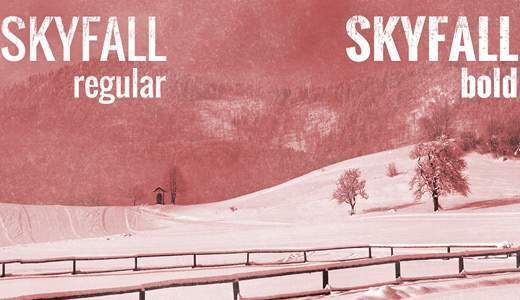
2. Scorched Earth font
3. SkyFall Done font
4. Old Press font
5. Top Secret font
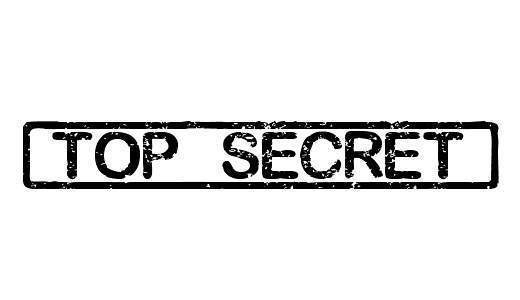
6. CF The Lost Battalion font
7. FarCry font
8. Tiza font
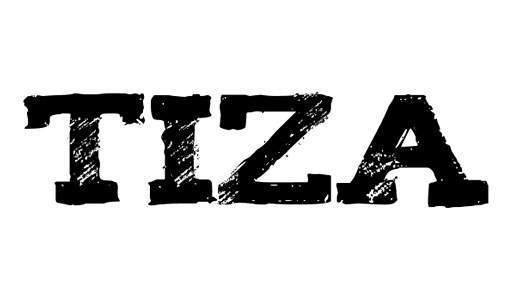
9. Subway Novella font
10. A Love of Thunder font
11. All Ages font
12. You Are Loved font
13. California font
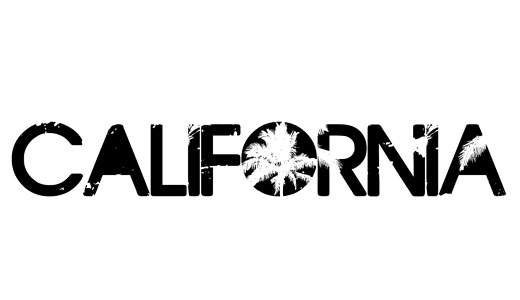
14. Revolution II font
15. Mailart Rubberstamp font
16. Octin Vintage Free font
17. Headliner No. 45 font
18. Hard Rock font
19. Punk Rock Show font
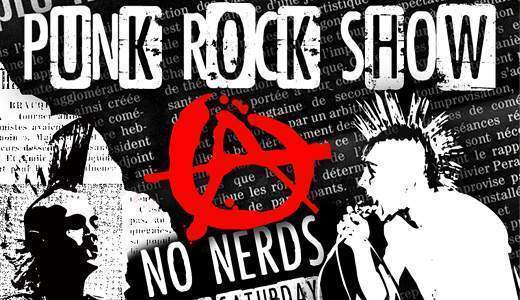
20. I Am Sherlocked font
21. Viper Nora font
22. CF Revolution font
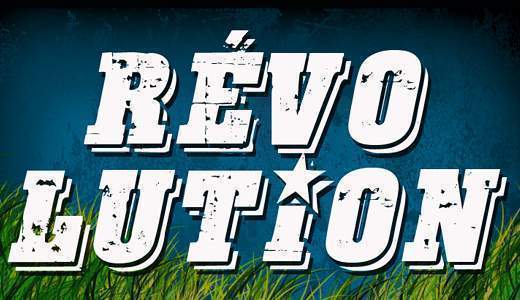
23. Elite Hacker Corroded font
24. Masterplan font
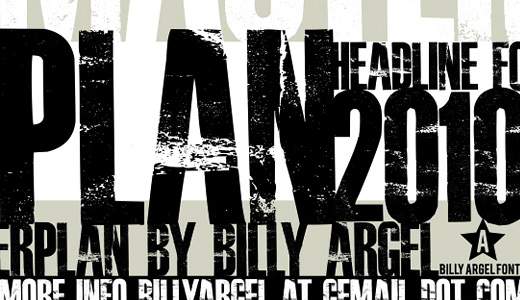
25. VTKS Worker font
26. Impacted font
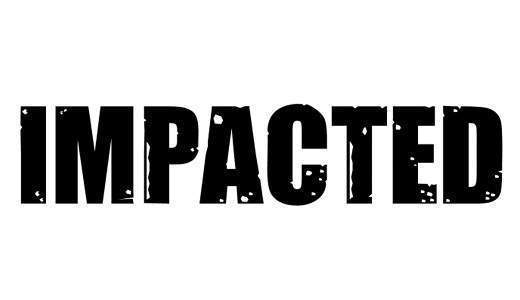
27. Stamp Act font
28. Hacking Trashed font
29. Badcab font
30. New Press Eroded font
31. Barber Shop font
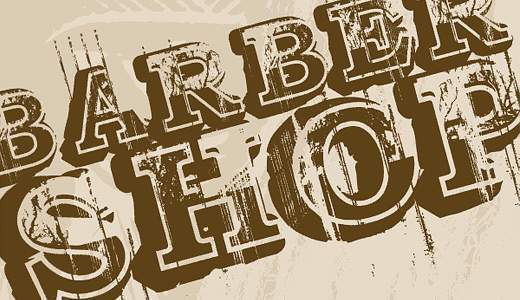
32. Dirty Headline font
33. Death font
34. Advent Psychosis font
35. Linkin Park font
36. Dirtybag font
37. Rock it font
38. Plane Crash font
39. TRASHED font
40. A bite font